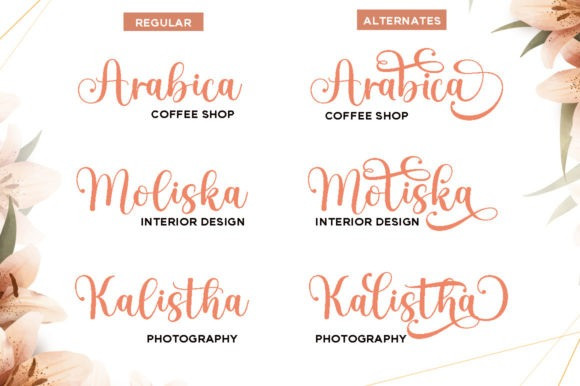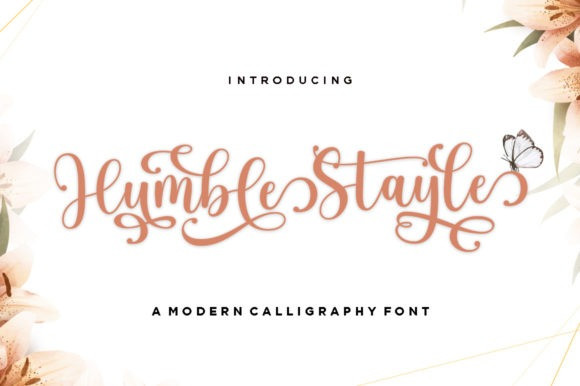
Humble Stayle Font
Humble Stayle Script Font is a dazzling script font. This font is neatly crafted and highly detailed. It is also PUA encoded which means you can access all glyphs and swashes with ease!